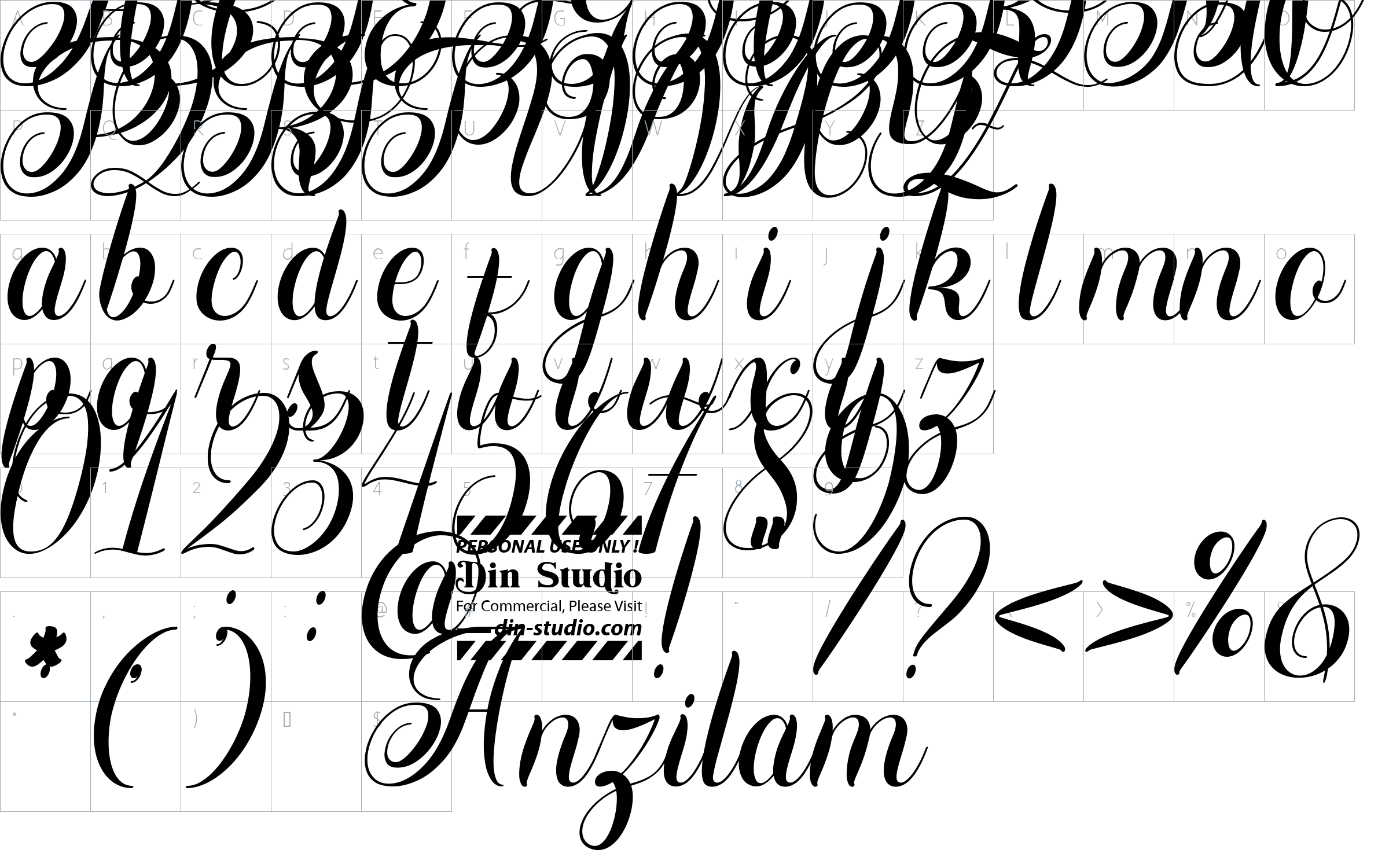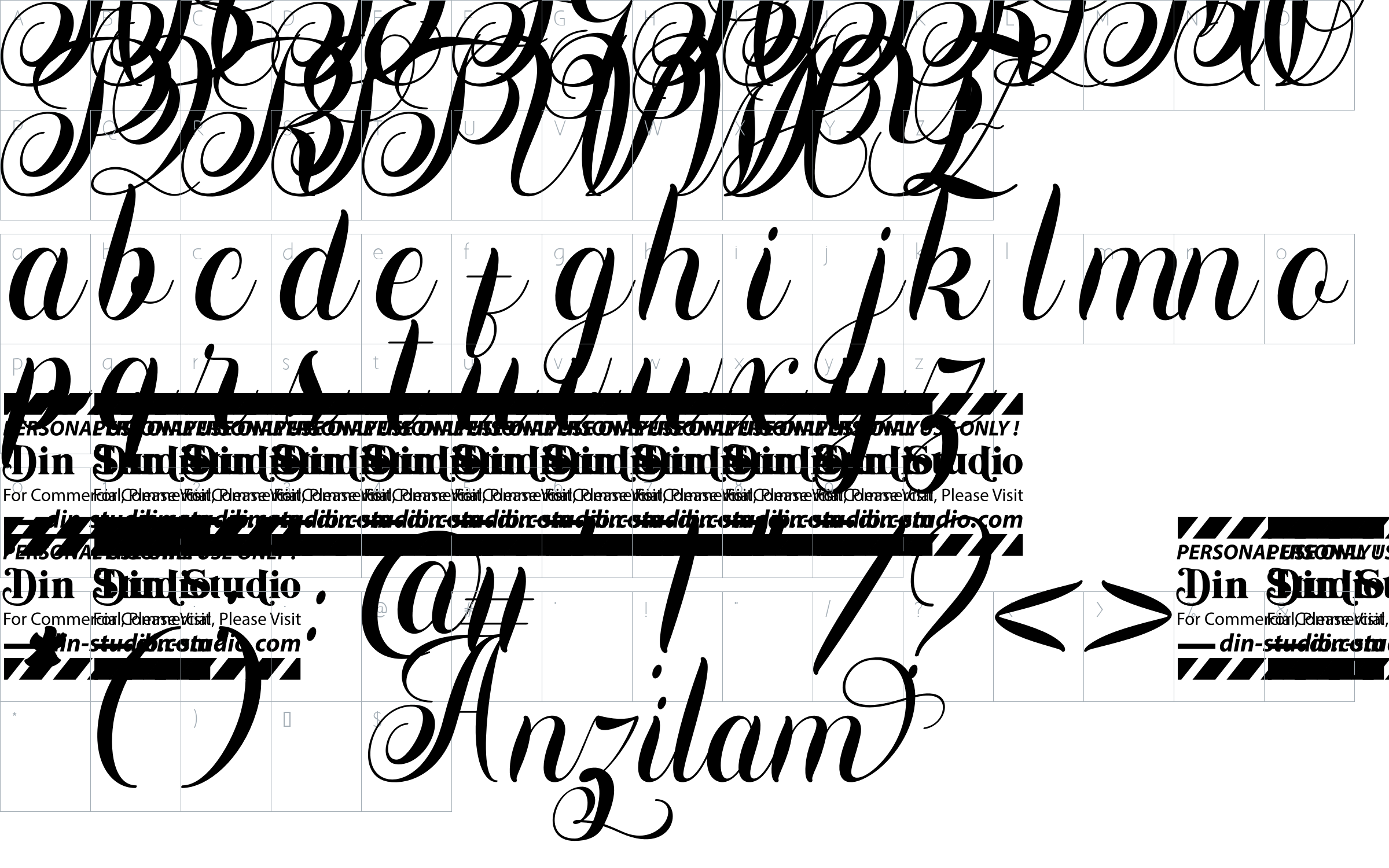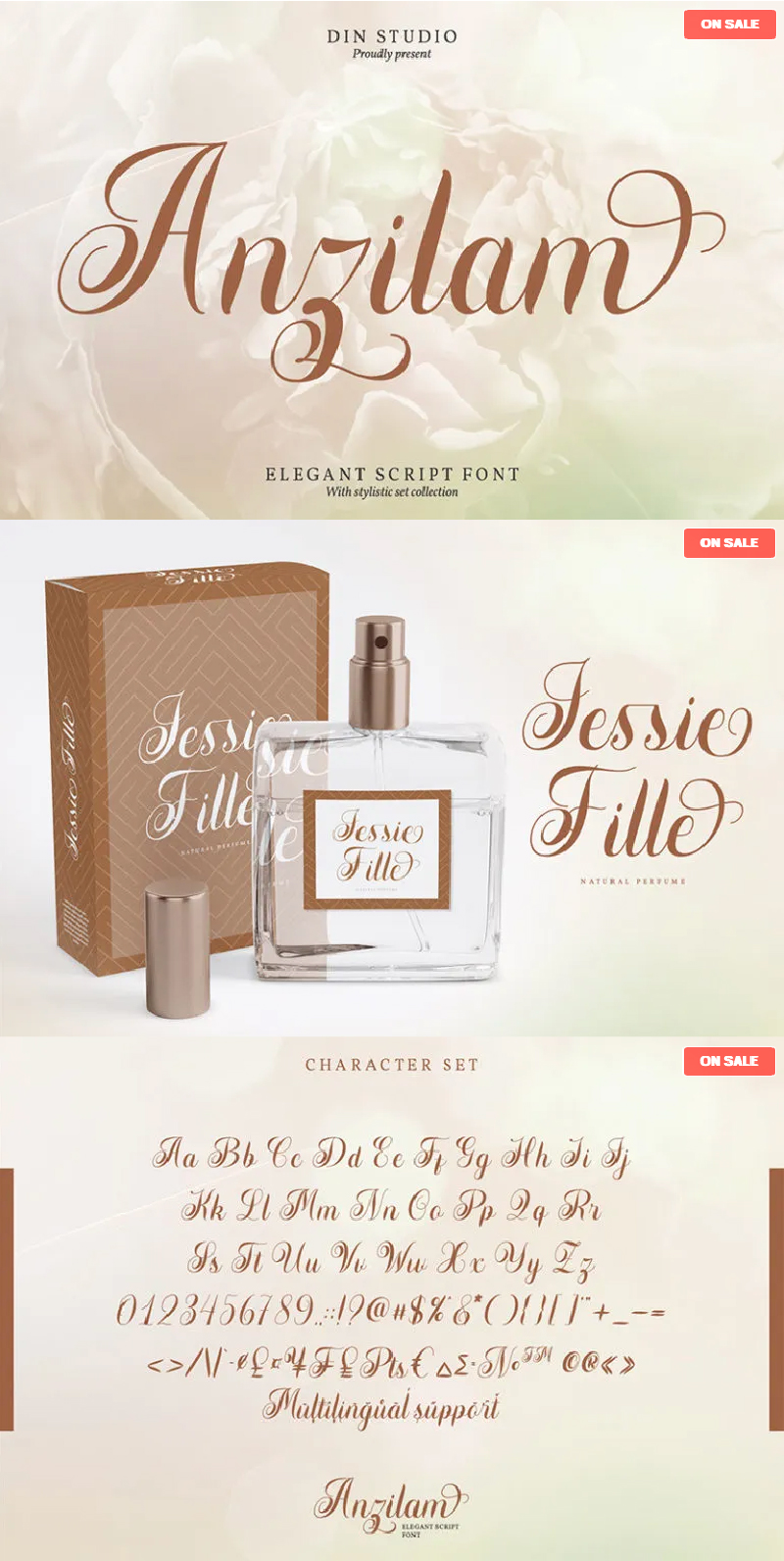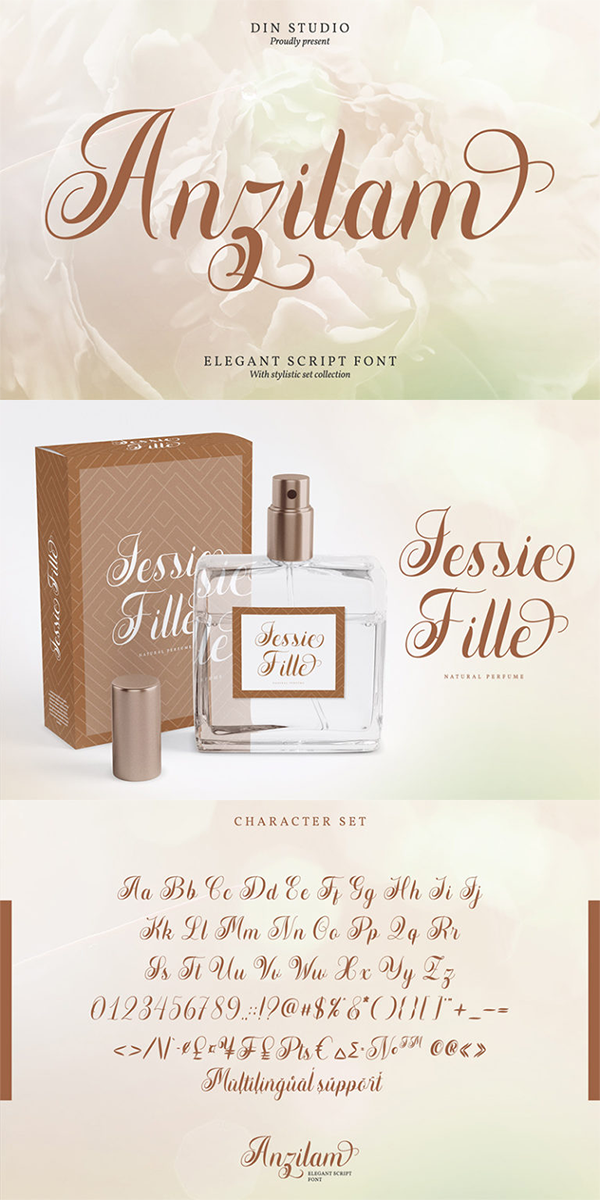
Anzilam Font
About Anzilam
Anzilam is a modern calligraphy font. It brings a beautiful and attractive typeface. Made for any professional project branding. It is the best for logos, branding, wedding and quotes. See the previews above to get some inspiration on how you can use them
– Stylistic Set
– Beautiful Ligatures